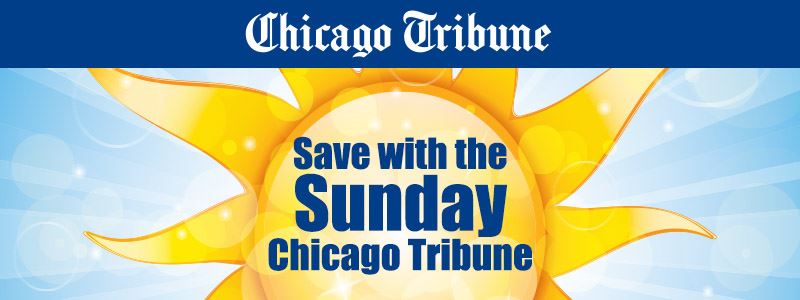
Chicago Tribune Logo Font
Chicago tribune logo font. The iconic font used for the letting on the chicago bulls jersey is called athletic and was utilized in 1966 when the team was built. 302 46 pixels. We have thousands of free fonts available for you. The most used fonts for the smaller text are franklin gothic and helvetica.